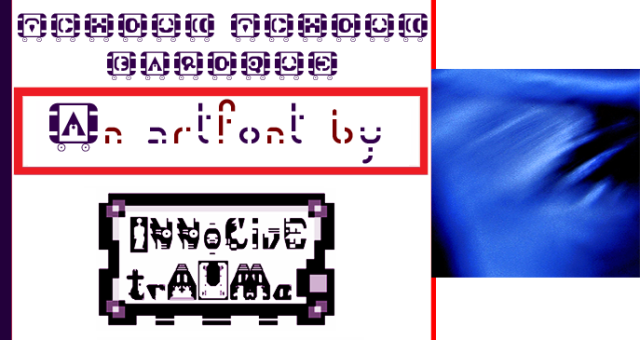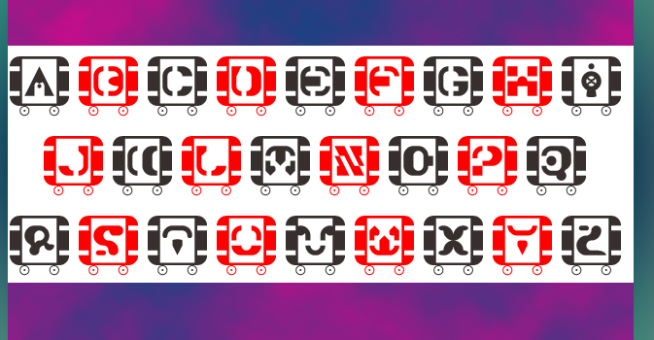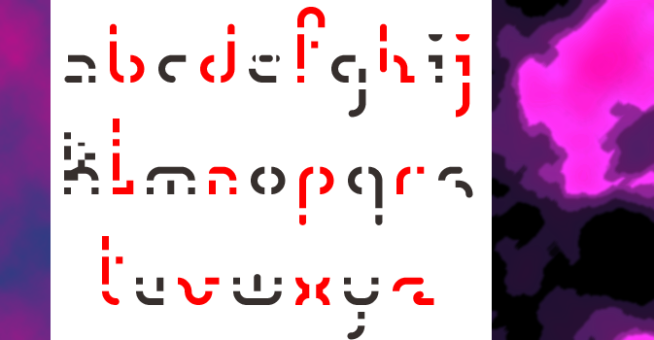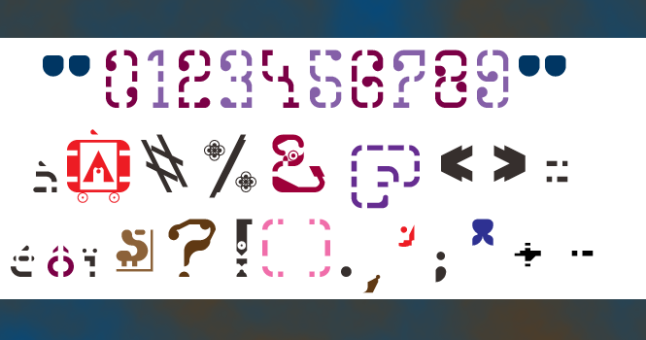
trAUMa 24 / Tchouk Tchouk Baroque
"Tchouk Tchouk Baroque", like all the "trAUMa" series, works at the frontier between Art & Type Design, Figuration & Abstraction, each font is a comprehensive world in which every glyph is a "living" entity. But put together they can produce your messages in the most accurate way.